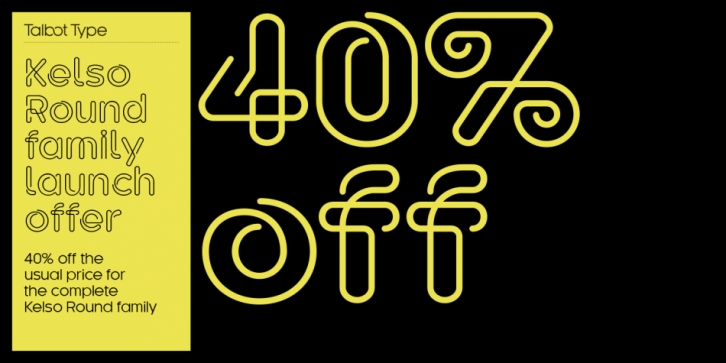
Designed by Adrian Talbot, Kelso Round is a display sans font family. This typeface has six styles and was published by Talbot Type.
Kelso Round is a highly original, outline display font. Each character is represented by a single continuous line to create a fluid and rhythmic look. A friendly and distinctive typeface that’s both easy to read and easy on the eye. Also available as Kelso, with sharper edges.